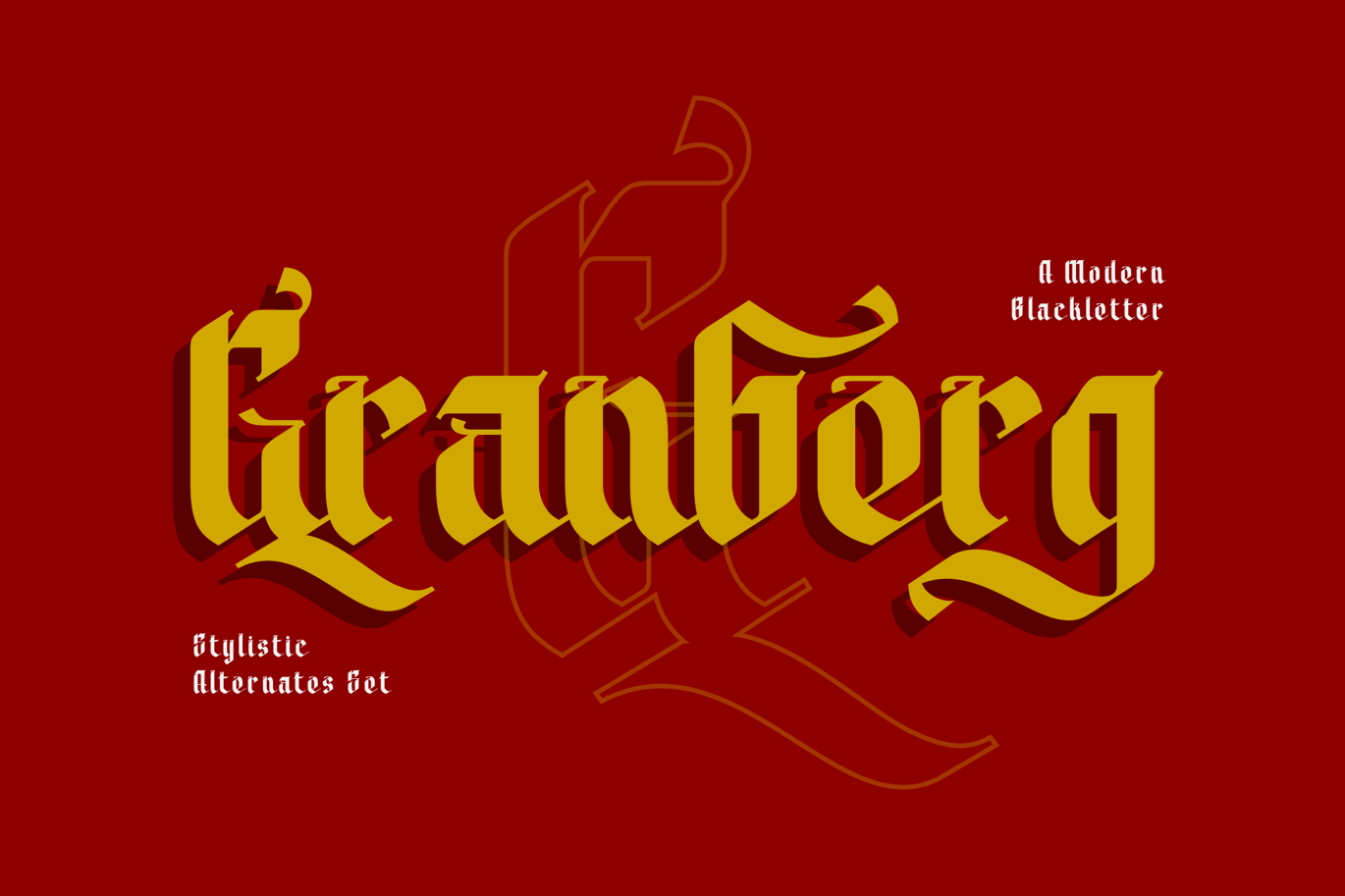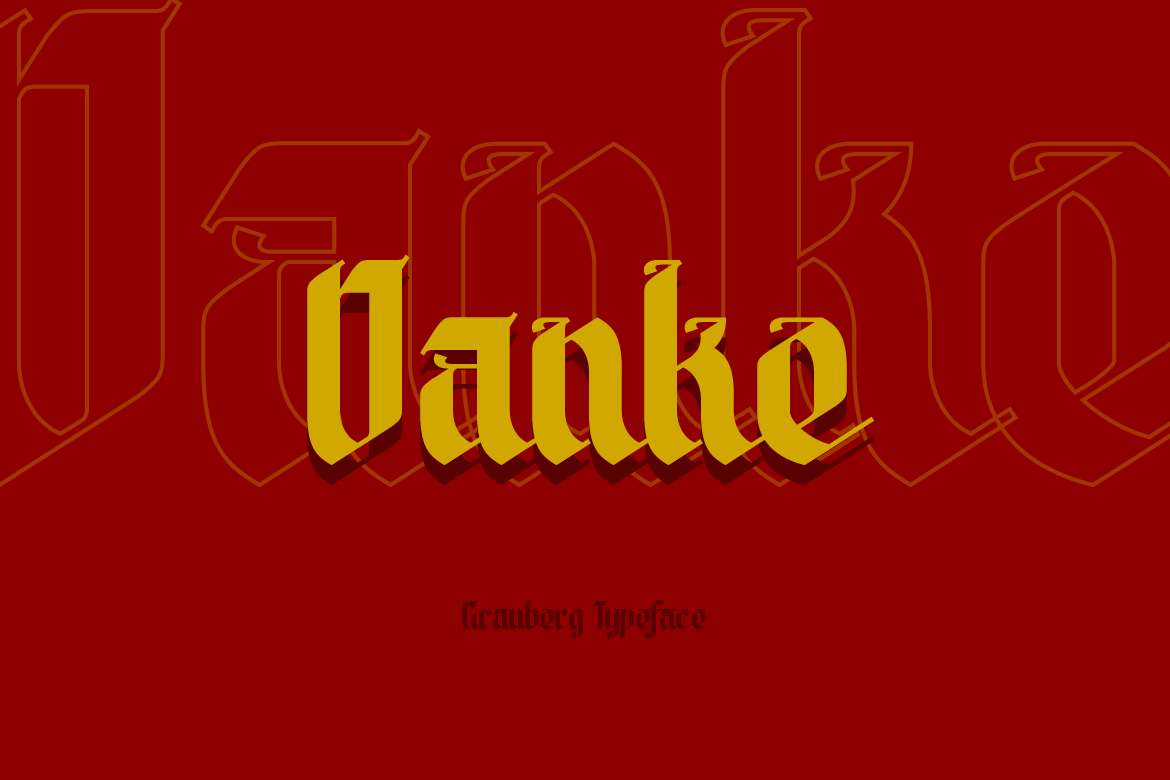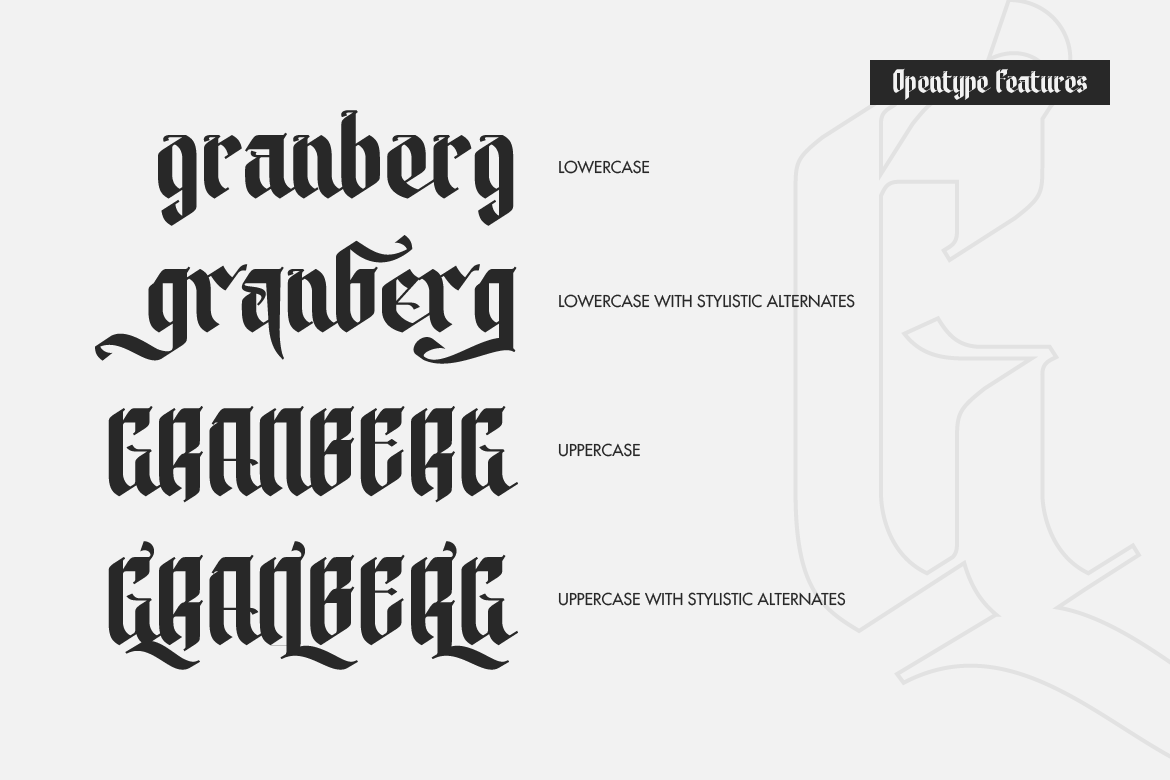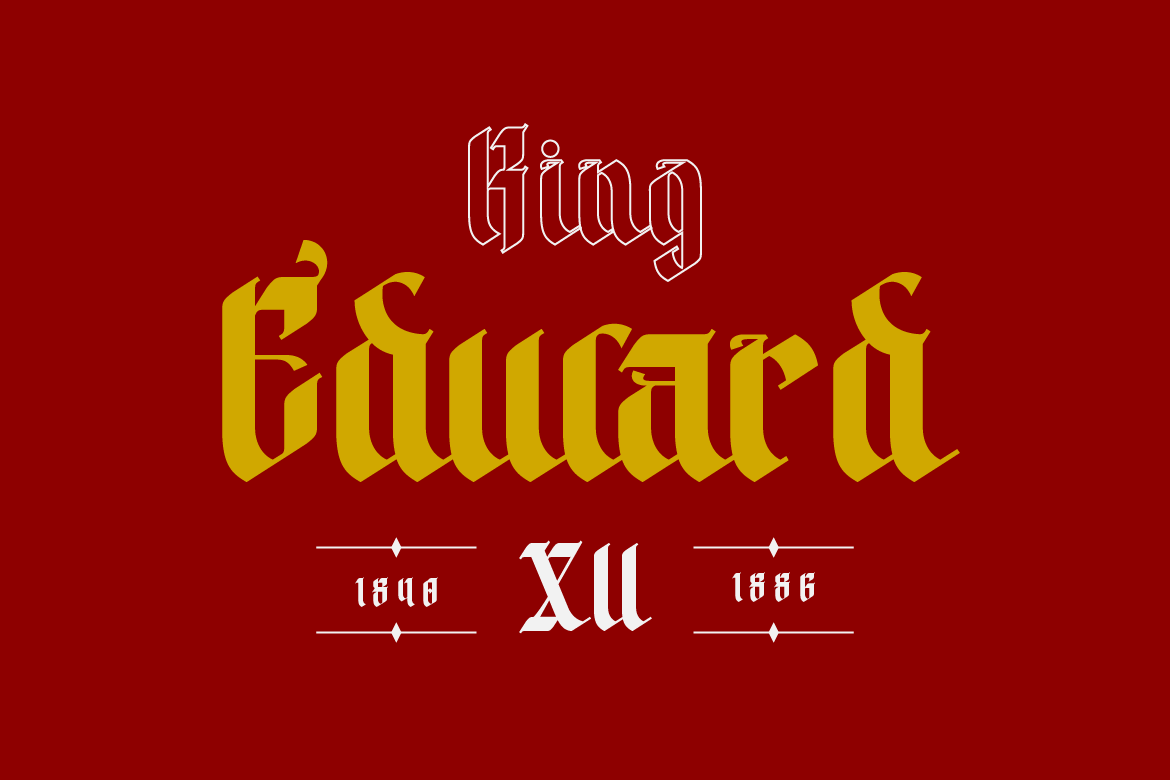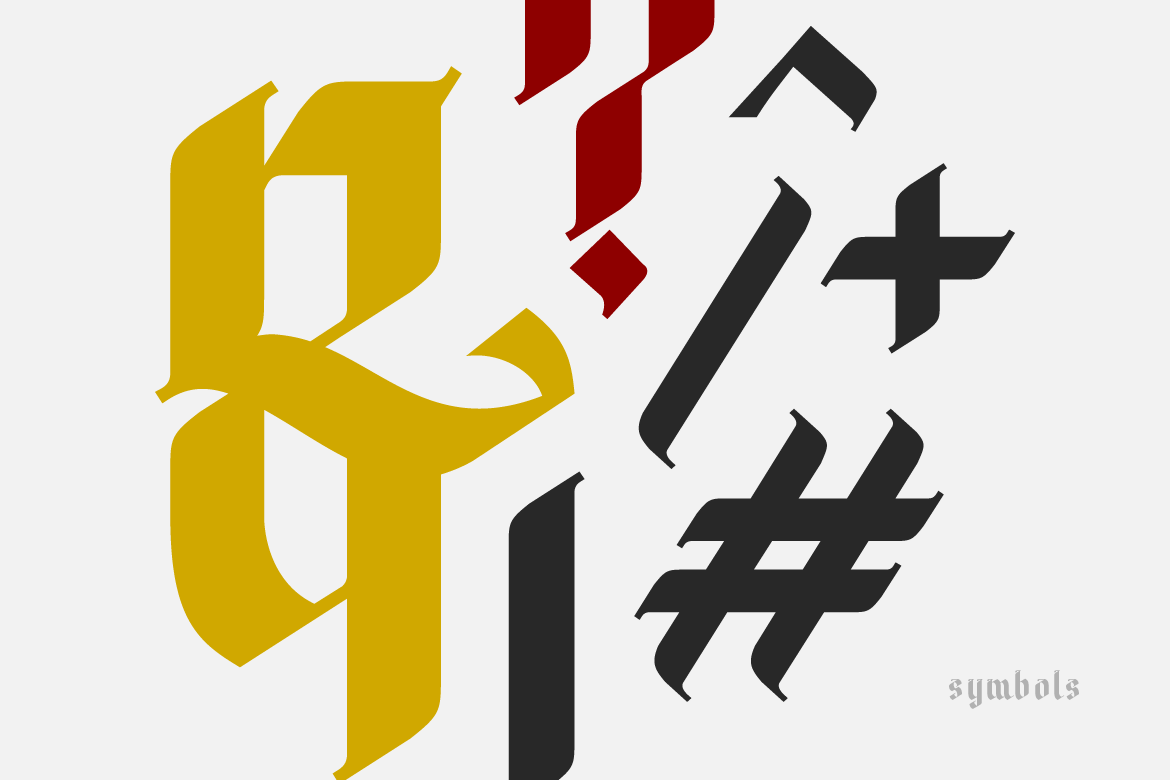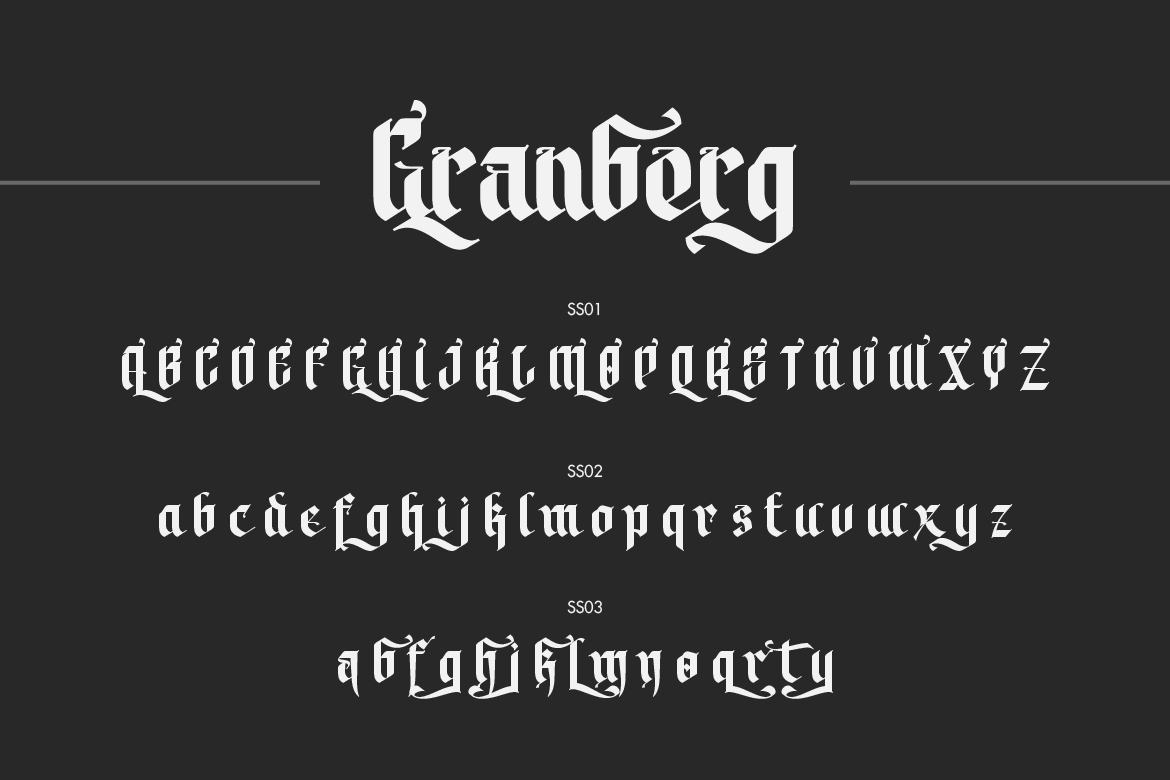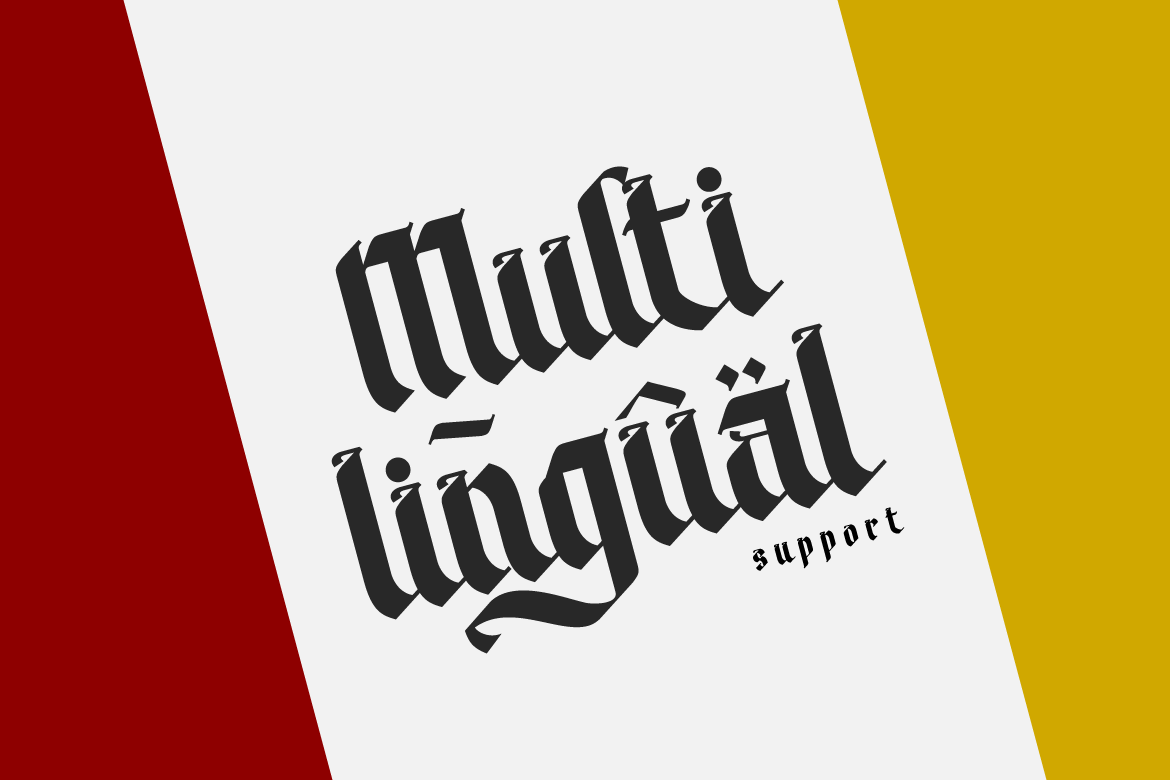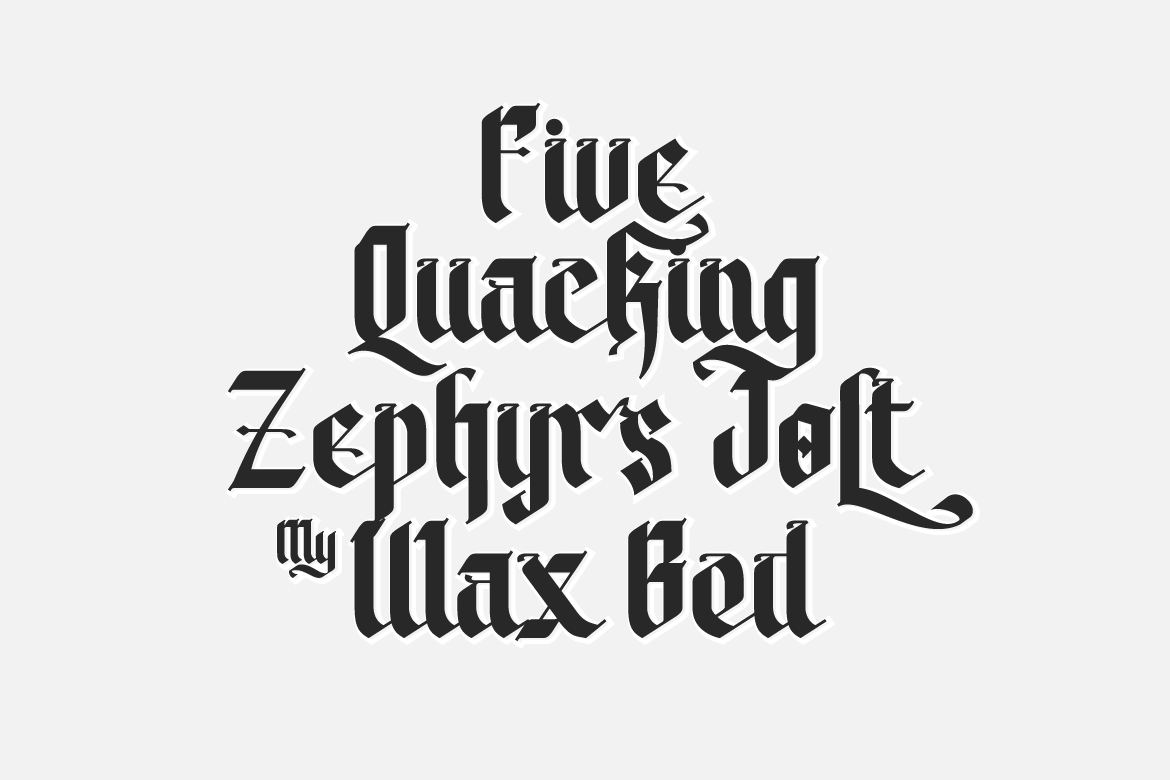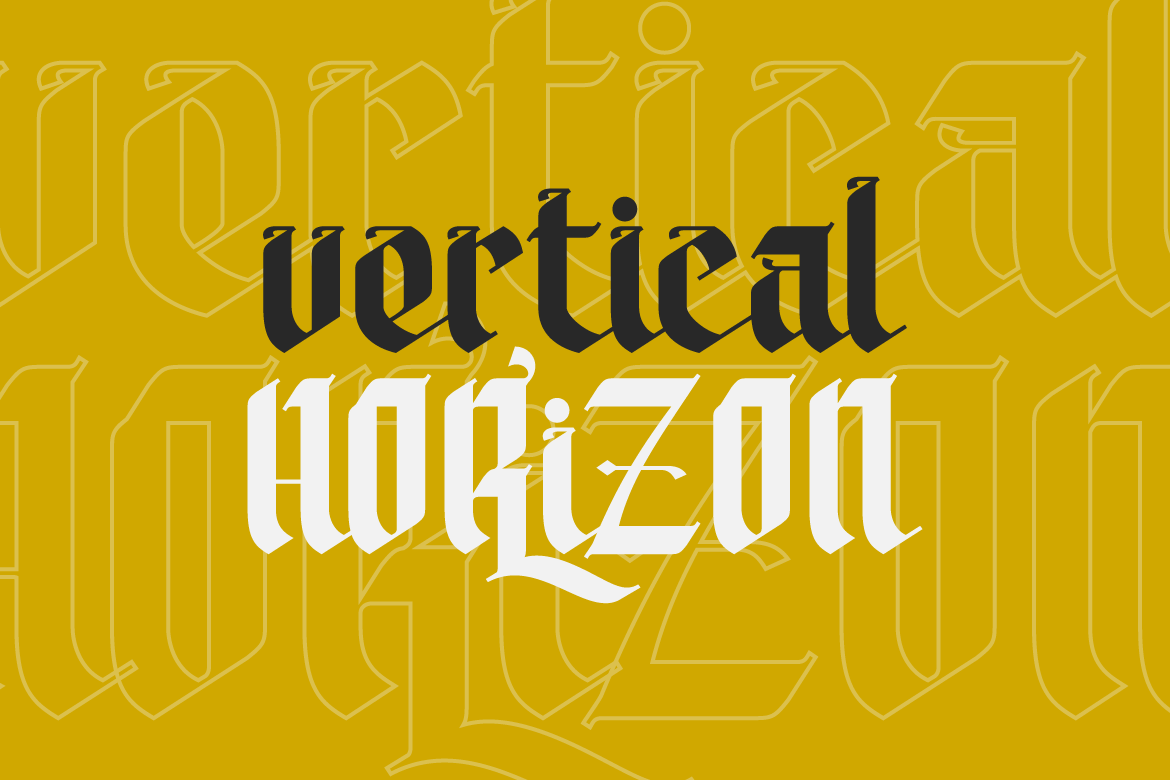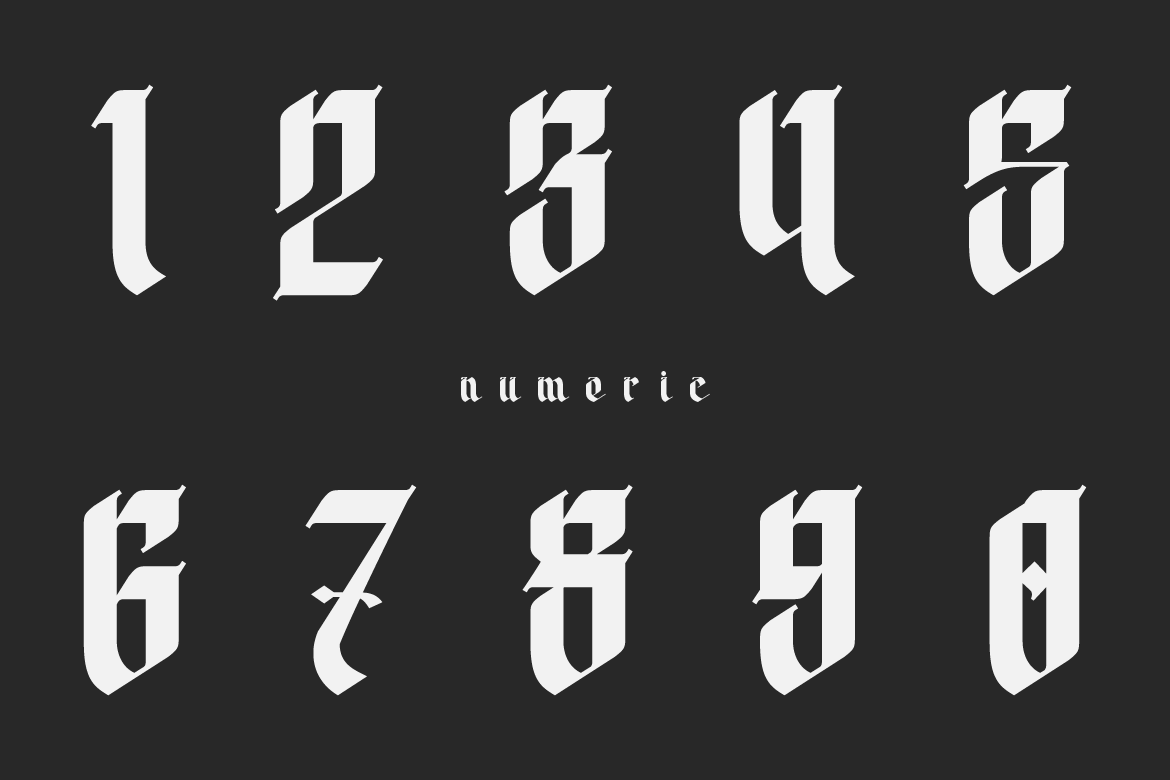
Modern Blackletter Font
Granberg is a new blackletter typeface, it has modern and gothic themes. Granberg comes with some alternates stylistic sets. Granberg would be perfect for branding, vintage posters, beer labels, and more.
- Alternates Stylistic Set
- Number and Punctuation